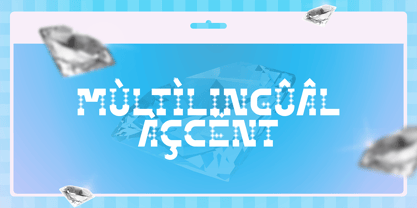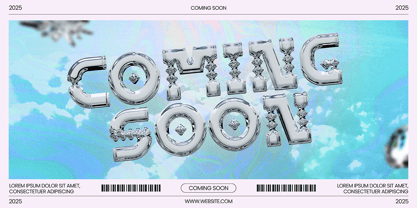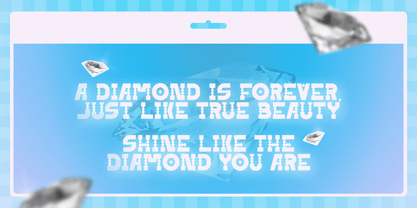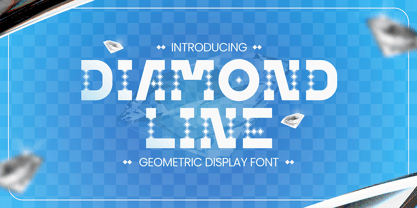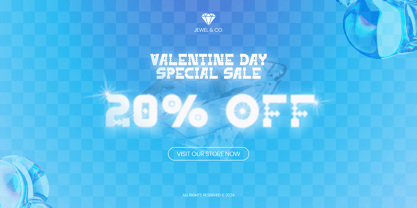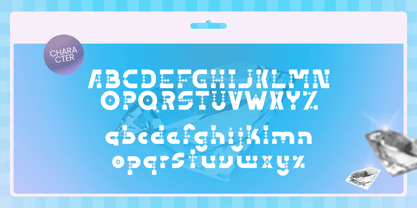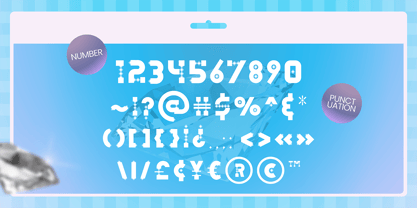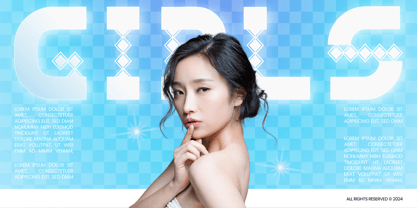
Diamond Line
von Attype Studio
Die Schriftfamilie Diamond Line wurde von Fadli Ramadhan Iskandar entworfen und von Attype Studio veröffentlicht. Diamond Line enthält 1 Stile. Mehr über diese Familie
Diamond Line is a bold and striking geometric display font with a unique Y2K-inspired style.
Its sharp edges and diamond-patterned details add a futuristic yet nostalgic vibe, perfect for designs that need a standout visual statement.
Ideal for posters, headlines, and modern branding, Diamond Line combines retro charm with modern versatility.
Let your creativity shine like a diamond with multilingual support to make your projects dazzle worldwide!
Designer: Fadli Ramadhan Iskandar
Foundry: Attype Studio